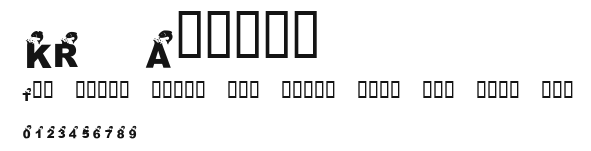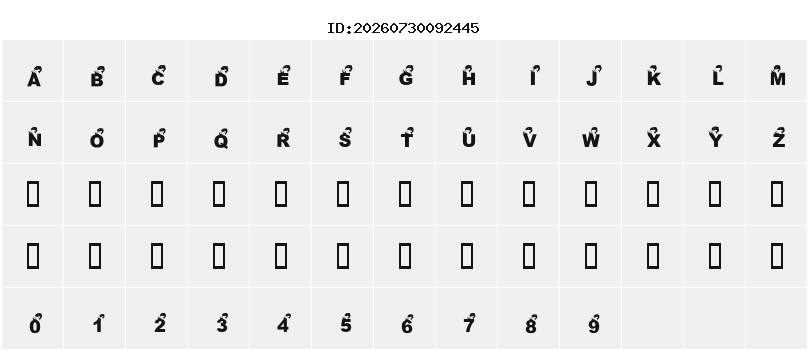
KR Angler Preview
• Font Name: KR Angler
• Full Font Name: KR Angler
• Character Count: 37
About KR Angler.ttf
KR Angler.ttf is a modern, elegant sans-serif font designed for ultimate readability and visual harmony. Perfect for branding, headlines, web design, and print materials.